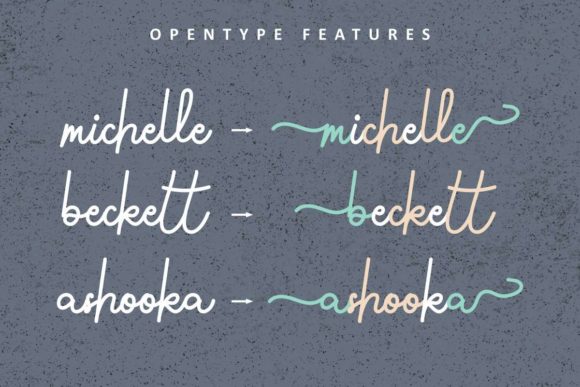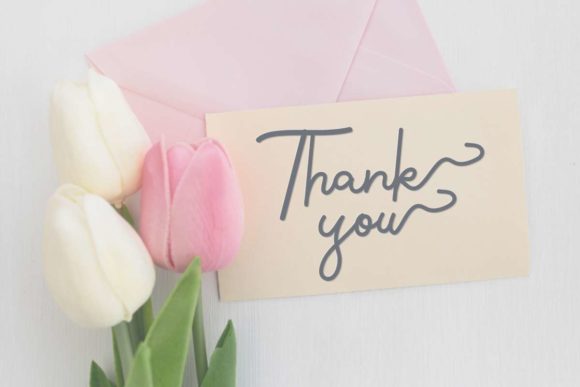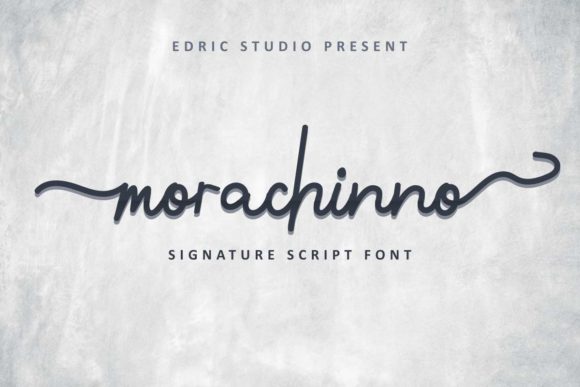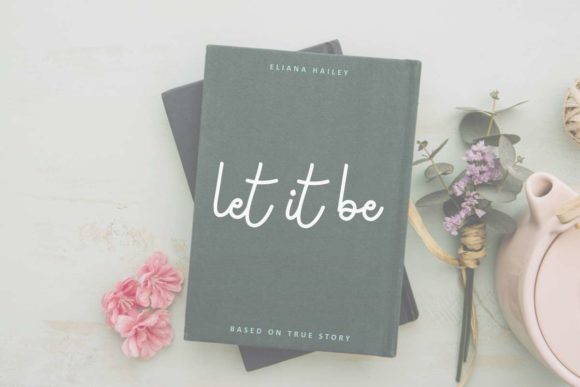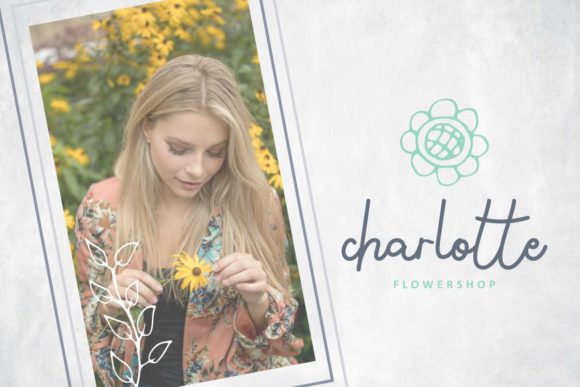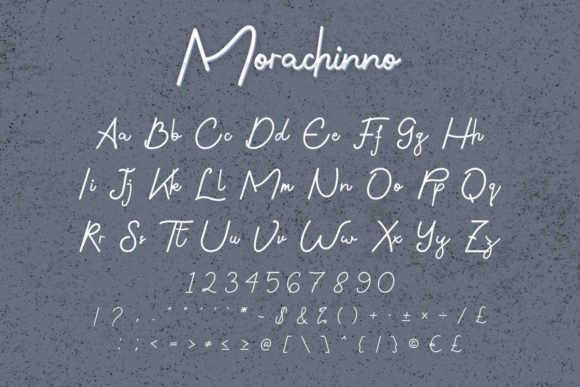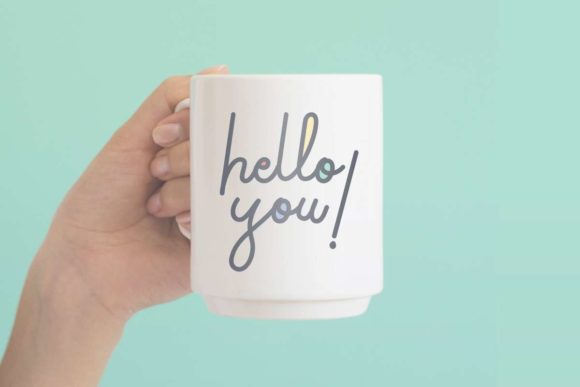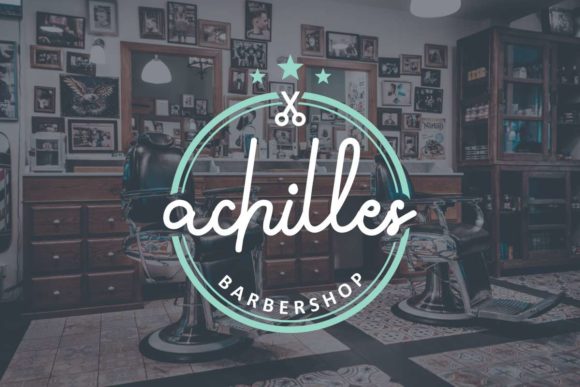
Morachinno Font
About Morachinno Font
Morachinno is a magical script font carefully created with a touch of elegance. Get inspired by its authentic feel and use it to create gorgeous wedding invitations, beautiful stationary art, eye-catching social media posts, and cute greeting cards.